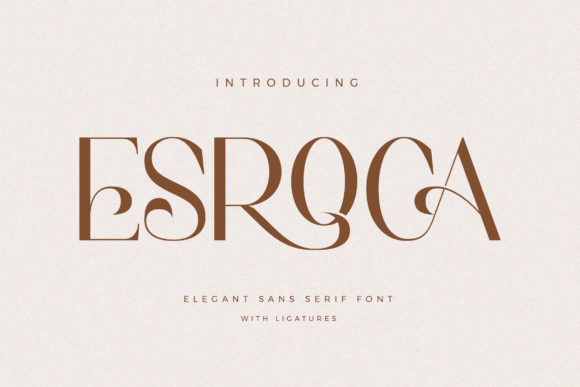
Introducing Esroca Font: The Ultimate Minimalist Typeface for Elegant Design
In the world of design, typography plays a crucial role in conveying messages, expressing creativity, and building brand identities. Among the numerous font types available, the Esroca Font stands out as a modern, minimalist typeface inspired by famous logos. Its clean lines, simplicity, and elegance make it an ideal choice for designing templates, brochures, videos, advertising branding, logos, invitations, layout designs, and more.
The Inspiration Behind Esroca Font
The Esroca Font draws inspiration from the minimalist logo design trend, which emphasizes simplicity and clarity. The font’s creator aimed to craft a typeface that embodies the same principles of minimalism, making it perfect for designers seeking a clean and sophisticated look. By stripping away unnecessary elements, the Esroca Font achieves a sleek, modern appearance that adapts seamlessly to various design applications.
Key Features of Esroca Sans Font Typeface
The Esroca Sans Font Typeface boasts several key features that make it an attractive choice for designers:
- Minimalist design: The font’s simplicity ensures that it does not overpower the content, allowing the message to take center stage.
- Clean lines: The Esroca Font’s clean lines and curves create a smooth, elegant appearance.
- Versatility: This typeface is suitable for a wide range of design applications, from logos and branding to invitations and layout designs.
- Elegance: The Esroca Font exudes sophistication, making it perfect for beauty designs, elegant crafting, and high-end branding.
Perfect for Various Design Applications
The Esroca Font’s versatility makes it an excellent choice for various design projects, including:
Templates
The Esroca Font is ideal for designing templates for presentations, reports, and other documents. Its clean lines and minimalist design ensure that the content takes center stage.
Brochures
Create stunning brochures with the Esroca Font. Its elegant appearance and simplicity make it perfect for showcasing products, services, or company information.
Videos
The Esroca Font is a great choice for video titles, subtitles, and lower-case text. Its clean design and simplicity ensure that the text blends seamlessly with the video content.
Advertising Branding
Establish a strong brand identity with the Esroca Font. Its modern, minimalist design makes it perfect for creating logos, taglines, and other branding elements.
Logos
The Esroca Font is an excellent choice for designing logos that require a clean, elegant appearance. Its simplicity ensures that the logo is scalable and versatile.
Invitations
Create beautiful invitations with the Esroca Font. Its sophisticated design and simplicity make it perfect for formal events, weddings, and other special occasions.
Layout Design
The Esroca Font is ideal for layout design, as its clean lines and minimalist design ensure that the content is easy to read and navigate.
Elegant Crafting
The Esroca Font’s elegant appearance makes it perfect for crafting projects, such as handmade cards, gift tags, and other paper crafts.
Beauty Design
The Esroca Font’s sophisticated design makes it an excellent choice for beauty designs, including packaging, labels, and branding materials.
Why Choose Esroca Font?
When it comes to selecting a font for your design project, there are several reasons to choose the Esroca Font:
- Unique design: The Esroca Font’s minimalist design sets it apart from other typefaces.
- Versatility: This font is suitable for a wide range of design applications.
- Elegance: The Esroca Font exudes sophistication, making it perfect for high-end branding and designs.
- Easy to read: The font’s clean lines and simplicity ensure that the text is easy to read.
In conclusion, the Esroca Font is a modern, minimalist typeface inspired by famous logos. Its clean lines, simplicity, and elegance make it an ideal choice for designing templates, brochures, videos, advertising branding, logos, invitations, layout designs, and more. With its versatility, unique design, and ease of use, the Esroca Font is an excellent addition to any designer’s toolkit.